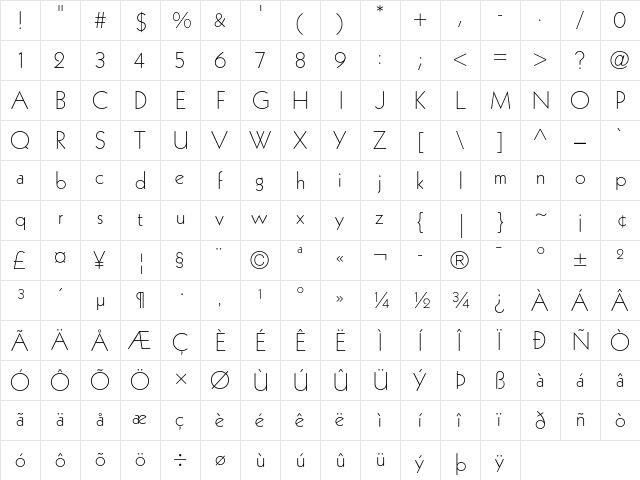
Kabel Light Font Preview
Kabel Light
Design Context for Kabel Typeface
Kabel is a composed and adaptable typeface that performs quietly and consistently across a wide range of design contexts. The delicate stroke weight brings airiness and refinement to layouts.